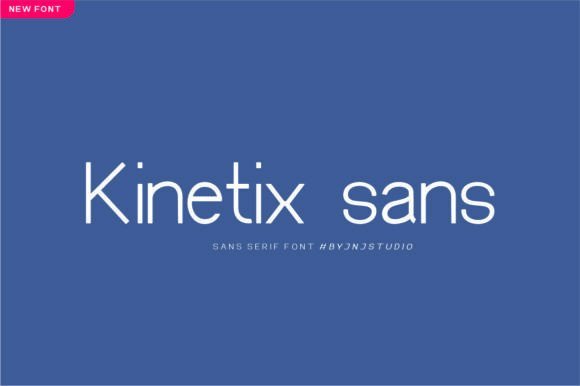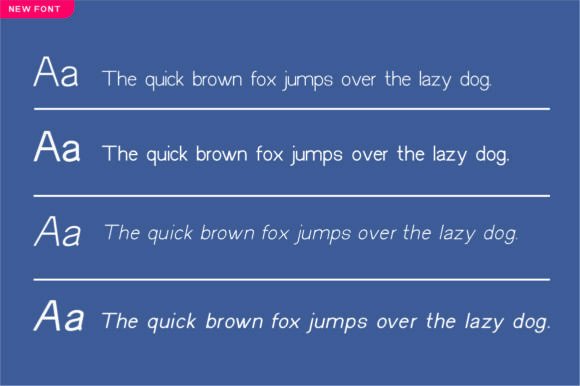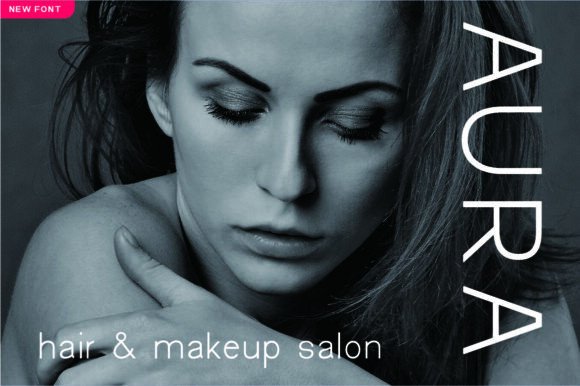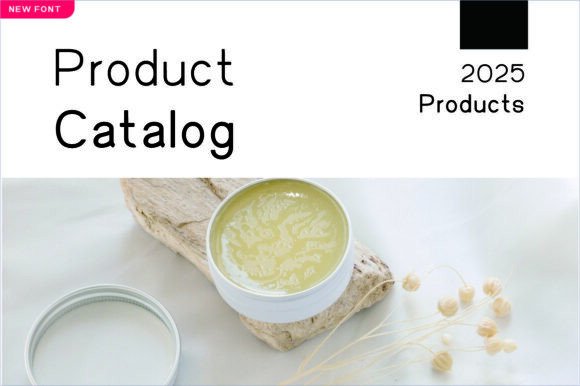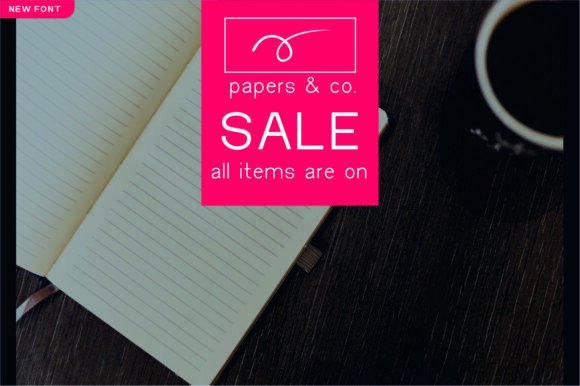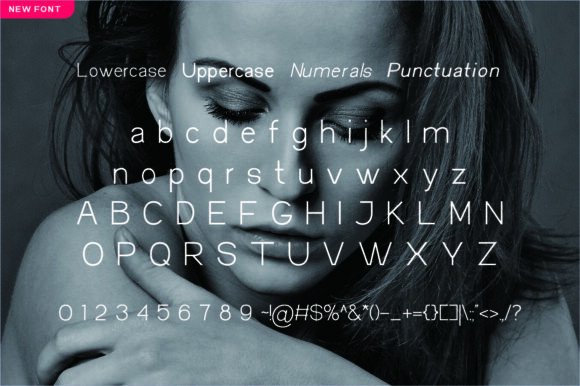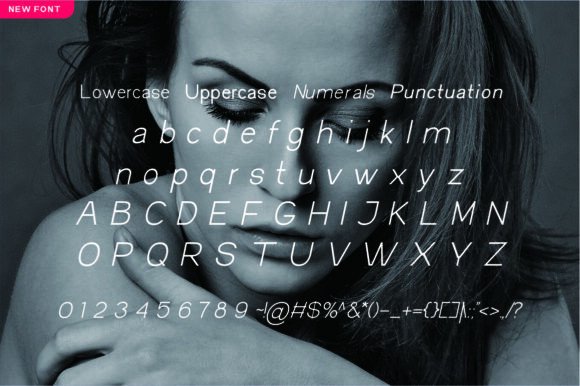
Elevate Your Design with the Ultimate Tool: Kinetix Sans Font
Imagine you’re working on a high-end branding project, and you need a font that exudes sophistication and modernity. You’ve spent hours browsing through different typefaces, but none of them seem to capture the essence of your vision. That’s when you stumble upon the perfect solution – the Kinetix Sans Font. This masterclass in modern design is a game-changer for designers who want to create stunning visual identities.
The Kinetix Sans Font is a versatile and highly legible typeface that’s perfect for a wide range of creative projects. Its clean lines, geometric structure, and carefully crafted spacing make it an ideal choice for branding, technology interfaces, editorial layouts, and more. Whether you’re working on a sleek website header or a professional corporate identity, this font is sure to elevate your design to the next level.
- Font Family: Kinetix Sans, a modern sans-serif font designed for digital use.
- Font Size: Available in 6 font sizes, ranging from 12pt to 72pt, with each size optimized for digital use.
- Resolution: Designed for high-resolution displays, with optimized glyphs for 72 dpi, 96 dpi, and 144 dpi resolutions.
- Unique Characteristics: Features a clean, geometric design with a subtle rounded edge, making it highly legible and versatile for various applications.
- Language Support: Supports over 100 languages, including Latin, Cyrillic, and Greek scripts, making it suitable for global use.
Kinetix Sans Font Review
I recently had the chance to work with Kinetix Sans Font, and I must say it’s a solid addition to any designer’s toolkit. Here’s what I liked:
- ✨ Highly legible: Kinetix Sans is designed to be easy on the eyes, making it perfect for long blocks of text or digital interfaces.
- ✨ Versatile: This font comes in a range of weights and styles, allowing you to create a consistent visual identity across your projects.
- ✨ Well-suited for digital use: Kinetix Sans is optimized for screens, ensuring it looks great on everything from smartphones to large-format displays.
However, I did encounter a few limitations:
- ⚠️ Limited stylistic flair: While Kinetix Sans is well-designed, it’s not particularly distinctive or attention-grabbing. It’s a solid choice for everyday use, but might not stand out in a crowded design landscape.
- ⚠️ Limited language support: Kinetix Sans is primarily designed for Latin-based languages, which might limit its usefulness for designers working with non-Latin scripts.
Overall, I’d give Kinetix Sans Font 4 out of 5 stars. It’s a reliable, well-designed font that’s perfect for everyday use, but might not be the best choice for projects that require a bold or distinctive visual identity.
Use Kinetix Sans Font for:
- Clean and modern headings
- Corporate branding and identity
- Web and app design
Alternatives to Kinetix Sans Font
The Inter Font is a modern sans-serif typeface designed by Rasmus Andersson. It is known for its clean lines, high x-height, and excellent legibility. Use Inter Font for digital products, apps, and websites where a clean and minimalist aesthetic is desired.
Inter Font compares to Kinetix Sans Font in its simplicity and modern feel, but it has a more neutral and subtle appearance. While Kinetix Sans Font has a more distinctive and geometric shape, Inter Font is more versatile and works well in a variety of contexts.
Montserrat Font is a sans-serif typeface designed by Julieta Ulanovsky. It is inspired by the urban landscape of Montserrat, a mountain range in Argentina. Use Montserrat Font for headlines, titles, and body text where a strong, urban feel is desired.
Montserrat Font compares to Kinetix Sans Font in its geometric shape and modern feel, but it has a more dramatic and edgy appearance. While Kinetix Sans Font is more minimalist, Montserrat Font is more expressive and works well in contexts where a bold statement is needed.
Q: What font size and line height recommendations are there for optimal readability?
For optimal readability, we recommend using font sizes between 12-24 points and line heights between 1.2-1.5 times the font size. This will ensure that the text remains clear and easy to read, even at smaller sizes.